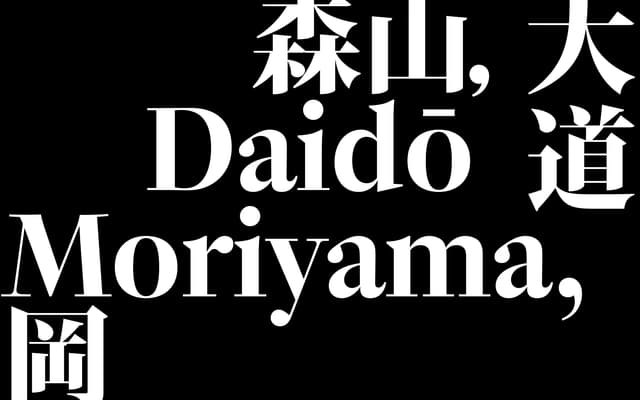
LL Kleisch Variable
LL Kleisch Variable specimen from Lineto
A transitional serif by Chiachi Chao designed from the ground up to pair with Ming CJK typefaces, drawing on Baroque and Neoclassical models to bridge formal features across two writing systems.
Chiachi Chao identified shared structural characteristics between Latin transitional serifs and Ming typefaces — similar ductus, stroke models and proportional logic born of parallel rationalisation processes — and built Kleisch around those convergences. The family spans three optical grades (text, headline and display) each with six weights and italics, plus a variable version with weight and contrast axes for fine-tuning against specific Ming designs. The result functions as a purpose-built Latin companion to CJK type as well as a capable standalone text face. Kleisch won a Swiss Design Award in 2023 before its full release in 2024.
Kleisch is grounded in Baroque and Neoclassical models, drawing on Van Dijk, Kis and Fleischman, placing it firmly in the transitional serif tradition with deliberate formal alignment to Ming typeface conventions.